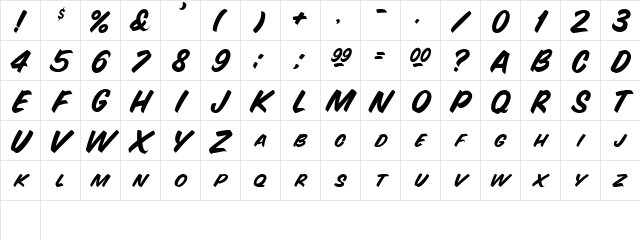
Snyders Normal Free Font
Snyders Normal
Design Context for Snyders
Snyders is a composed and adaptable typeface that performs quietly and consistently across a wide range of design contexts.
Pro Tip: Use Snyders in both headline and body roles to test its range before committing to a single application.